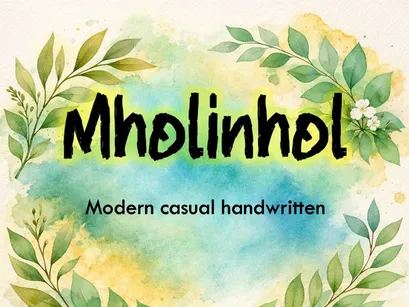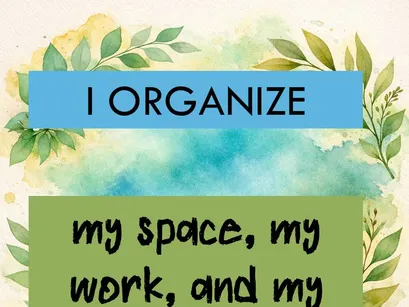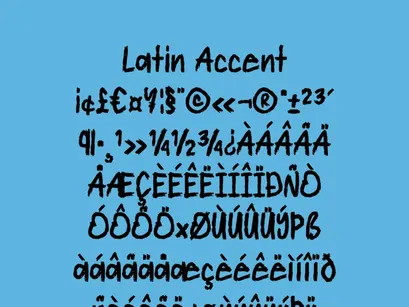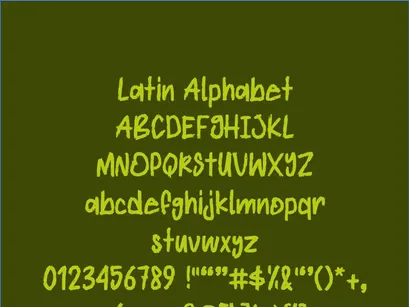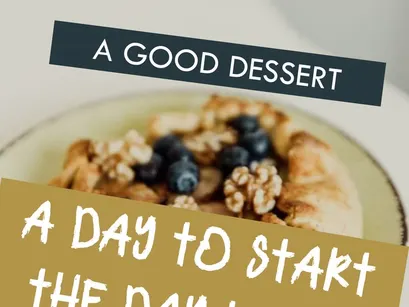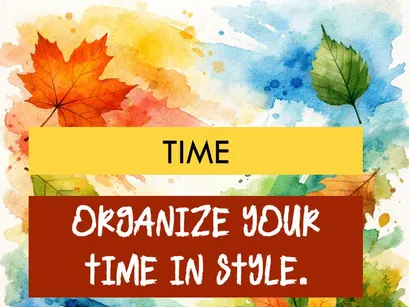
Mholinhol is a modern, casual handwritten typeface created for projects that seek a human, natural, and motivating touch.
Its balanced, expressive strokes make it ideal for planner covers, inspirational quotes, artisanal branding, digital lettering, and creative content.
Each character was drawn with dedication, reflecting the handcrafted style that distinguishes this typeface.
It includes the complete Latin alphabet, numbers, and basic symbols—perfect for texts in English and Spanish.
💛 Inspiration:
Mholinhol was born from the desire to turn the everyday into art—a font that invites you to write with intention and style.